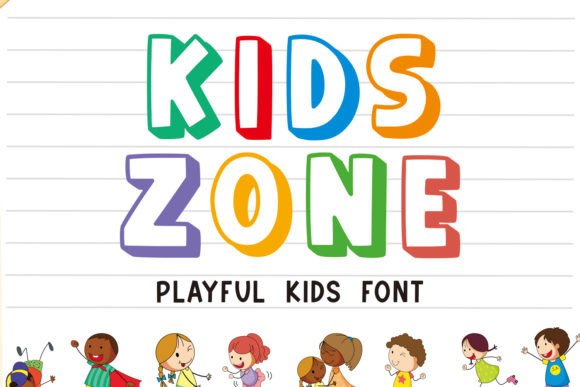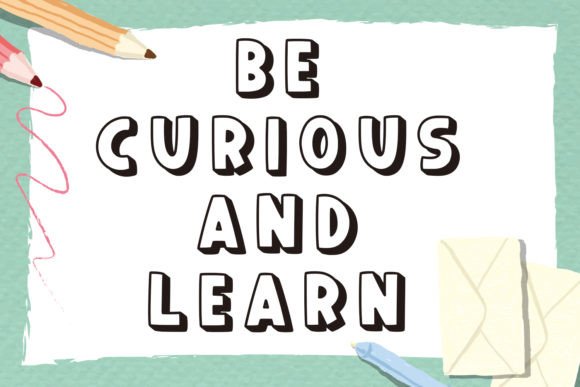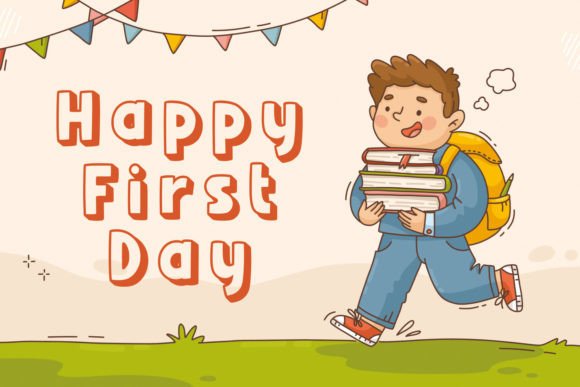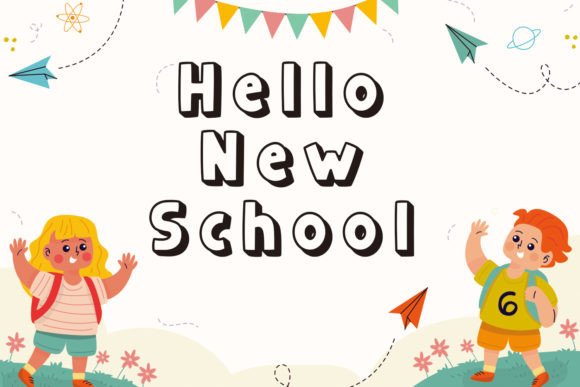
Kidszone Font
About the Kidszone Font
Explore the possibilities with Kidszone Font, a font that offers both beauty and functionality. Kids Zone embodies a vibrant and playful display style, reminiscent of colorful chalk writings on a blackboard. It evokes a sense of nostalgia, perfect for back-to-school themes, birthday cards, children’s writings, chalk-inspired designs, holiday greetings like Thanksgiving, crafting endeavors, kid-centric greeting cards, decorations, craft lettering projects, and even embroidery.
Kidszone excels as a display font for headlines, posters, and short, impactful text in children’s book illustrations or branding for playful products. Its hand-drawn quality makes it unsuitable for body text or UI elements where readability over long stretches is crucial. The informal nature also limits its use in formal contexts.
Pairing Kidszone with a clean sans-serif like Open Sans for body text creates a strong visual contrast and enhances readability. For a more playful feel, consider pairing it with a rounded geometric sans-serif such as Bebas Neue. A contrasting script font could add a touch of elegance to invitations or branding materials, though selecting one with a similarly informal feel is advised.
Kidszone possesses a bold, friendly, and slightly nostalgic personality. It works best for brands targeting children or young adults, and projects emphasizing fun, creativity, and childhood memories. Its informal, hand-drawn aesthetic projects warmth and approachability.
Kidszone Font Usage Examples
Kidszone Font Example